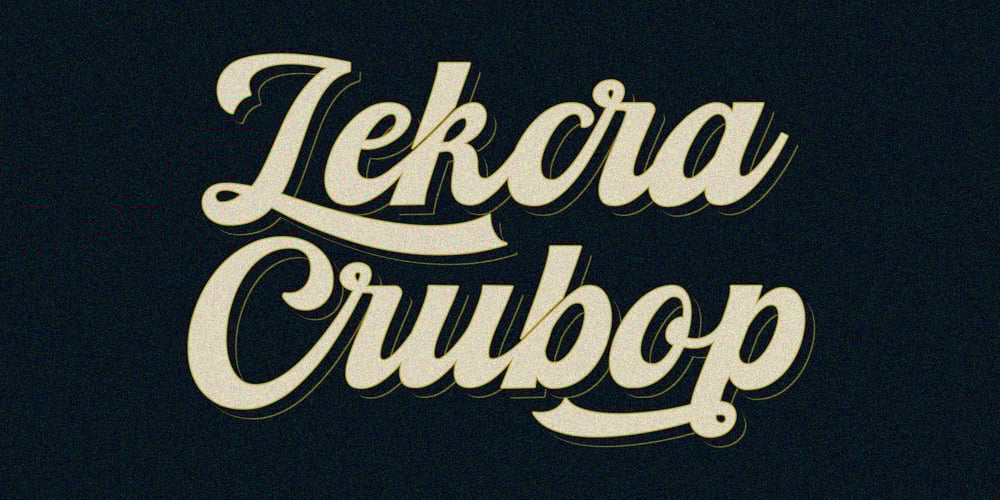
Lekcra Crubop Font Family was designed by Gilang Maulana and published by Maulana Creative. Lekcra Crubop contains 1 styles and family package options. Give your designs an authentic handcrafted feel. “Lekcra Crubop Font” is perfectly suited to signature, stationery, logo, typography quotes, magazine or book cover, website header, clothing, branding, packaging design and more.Thanks for use this font ~ Maulana.